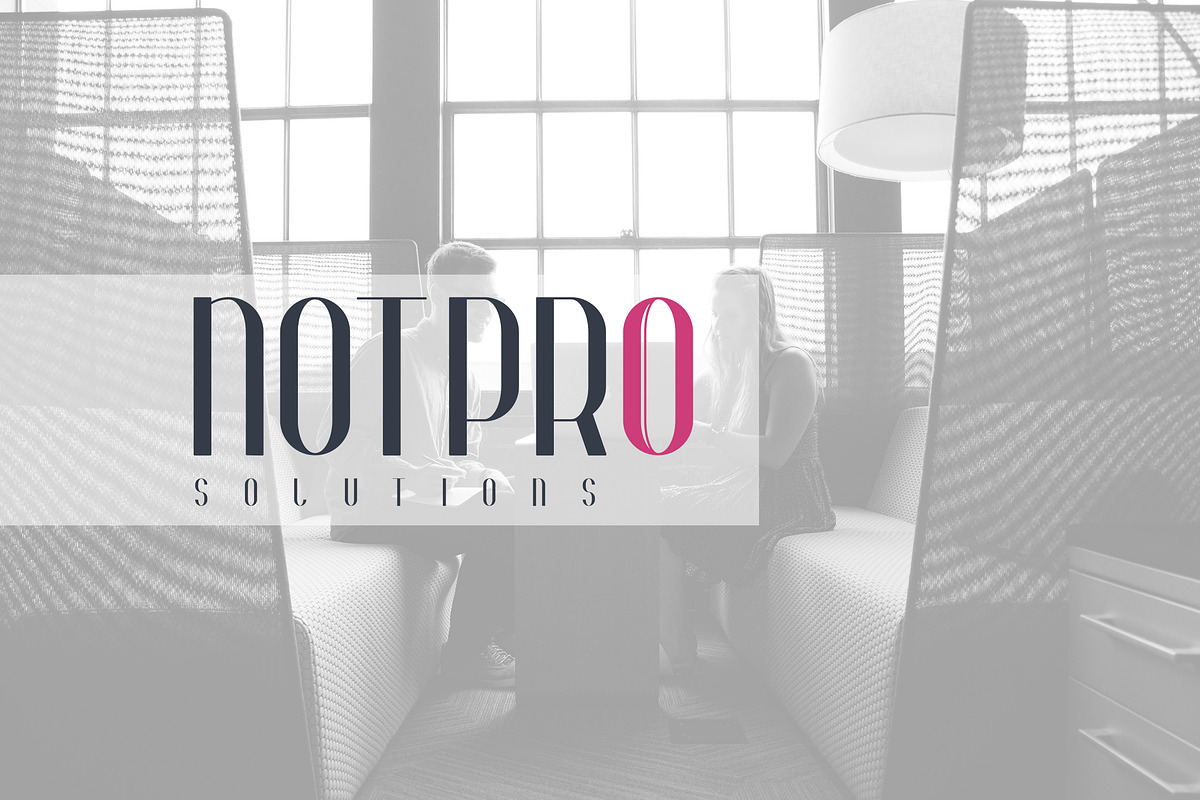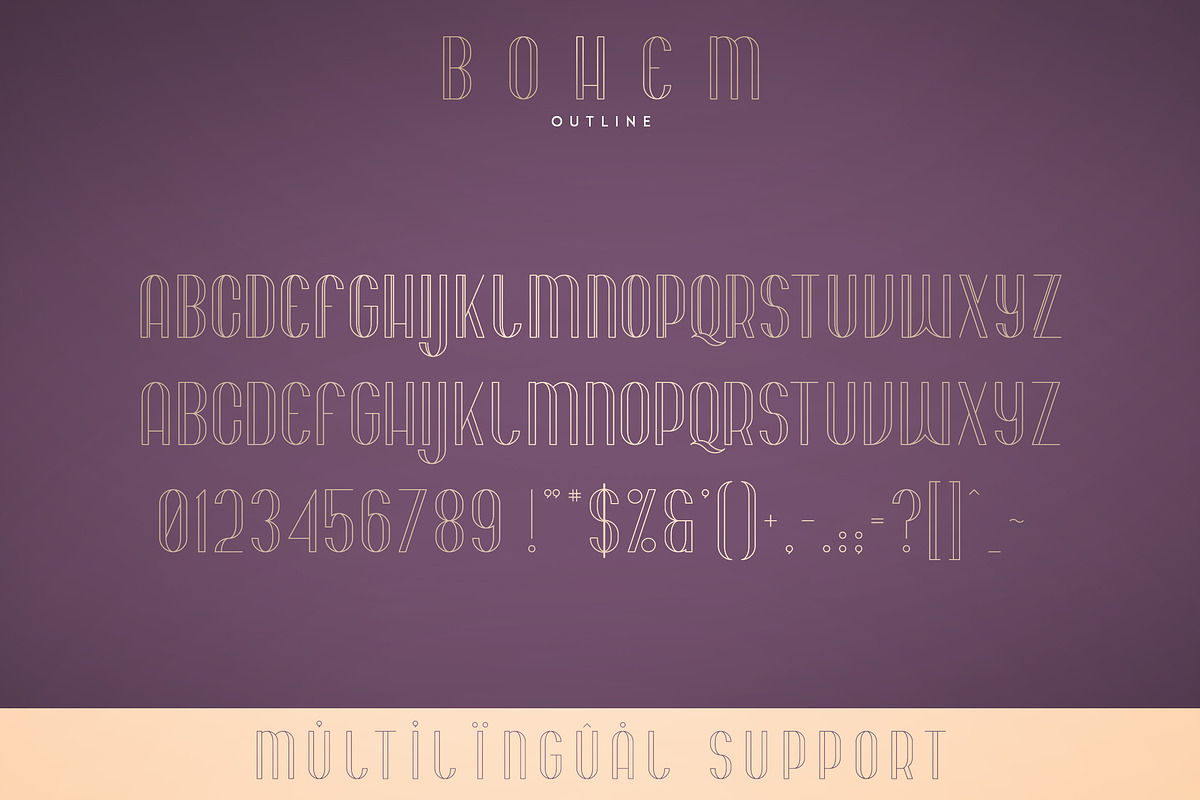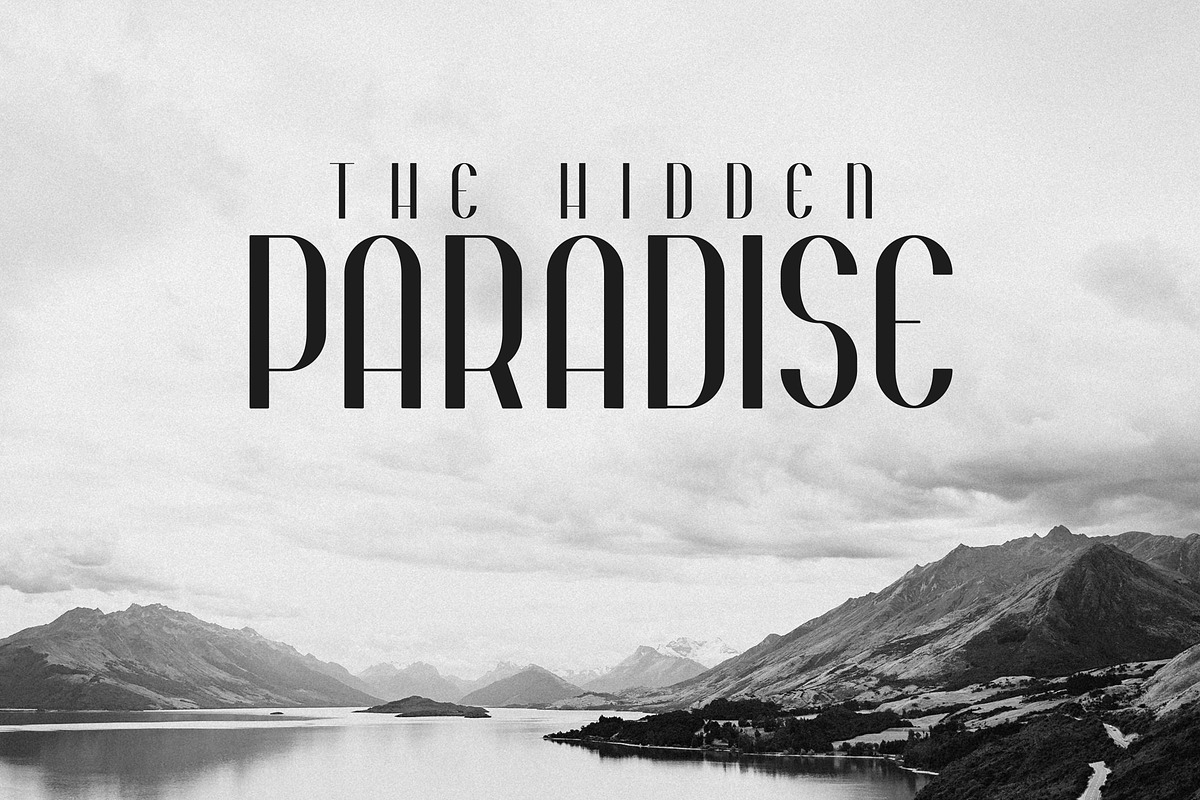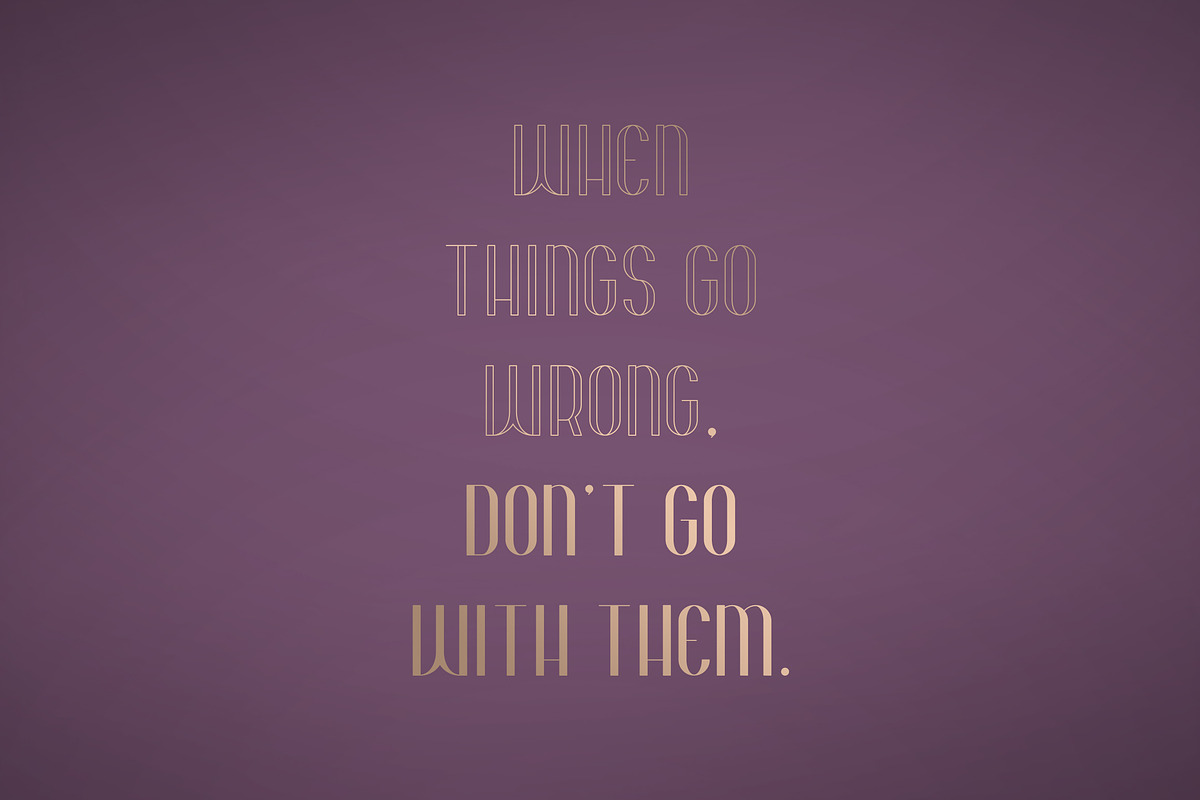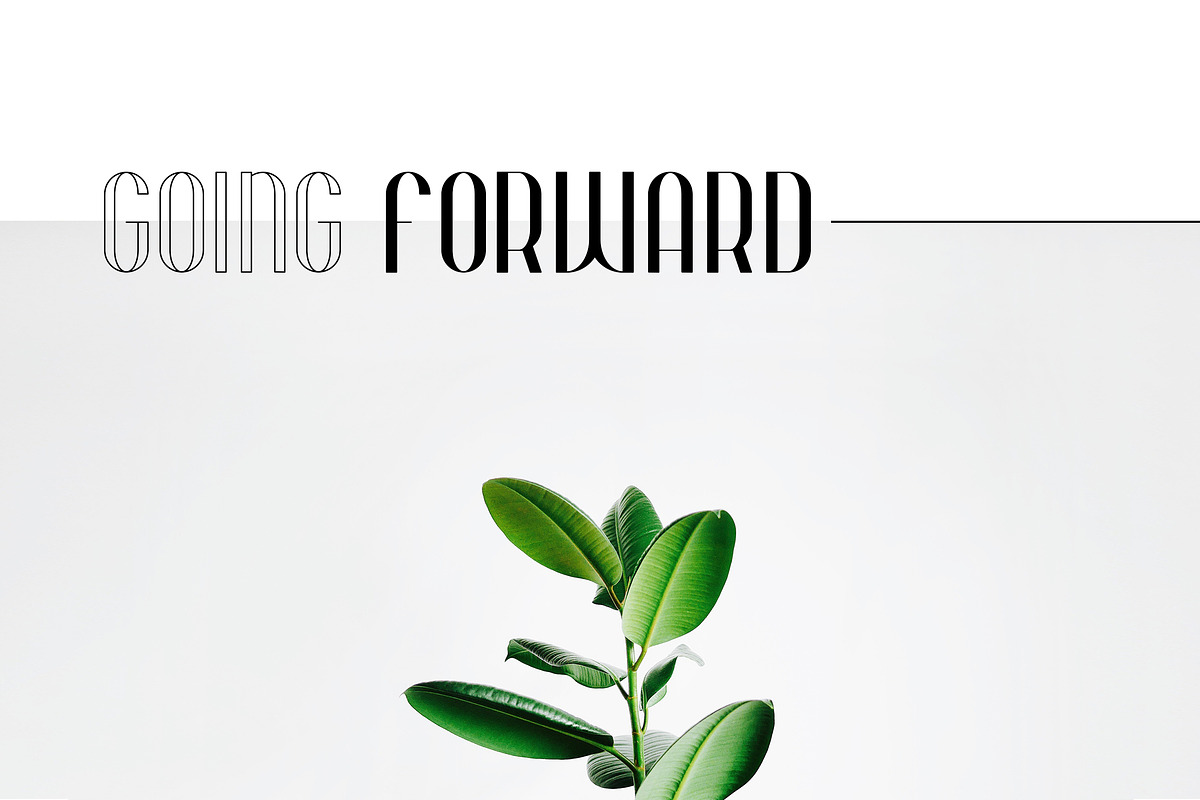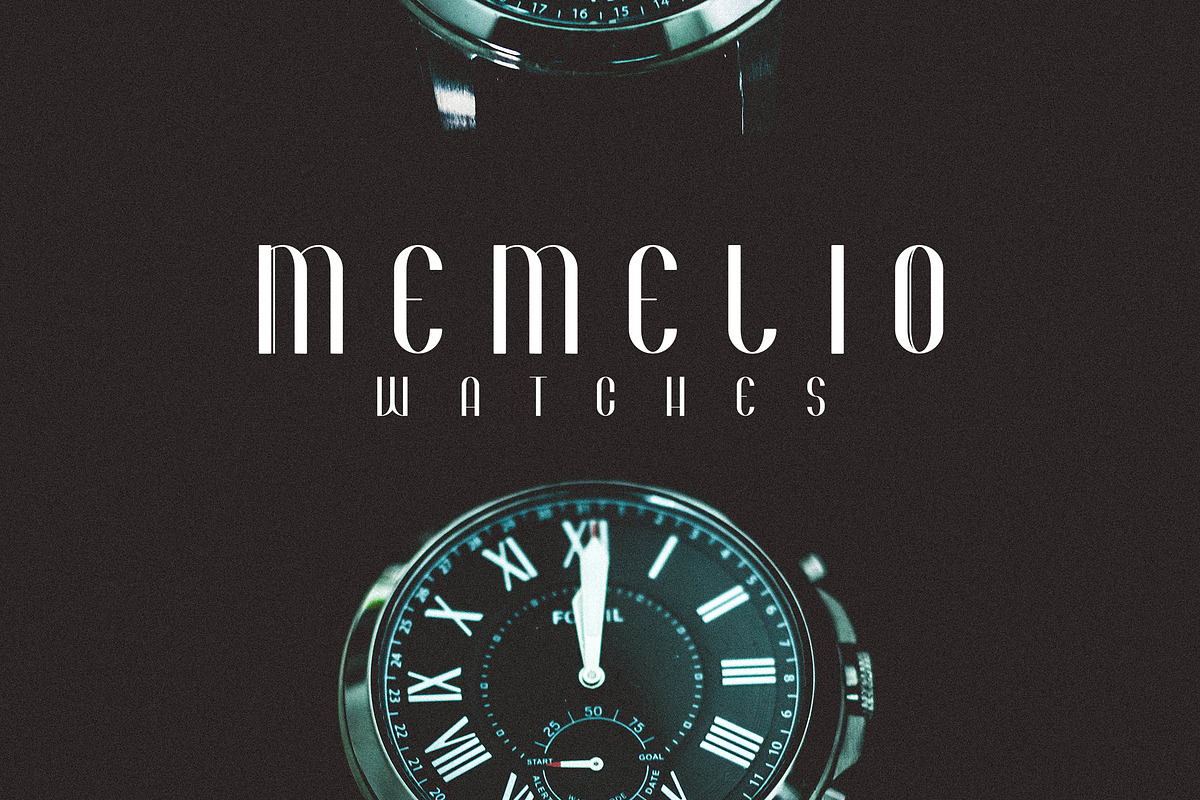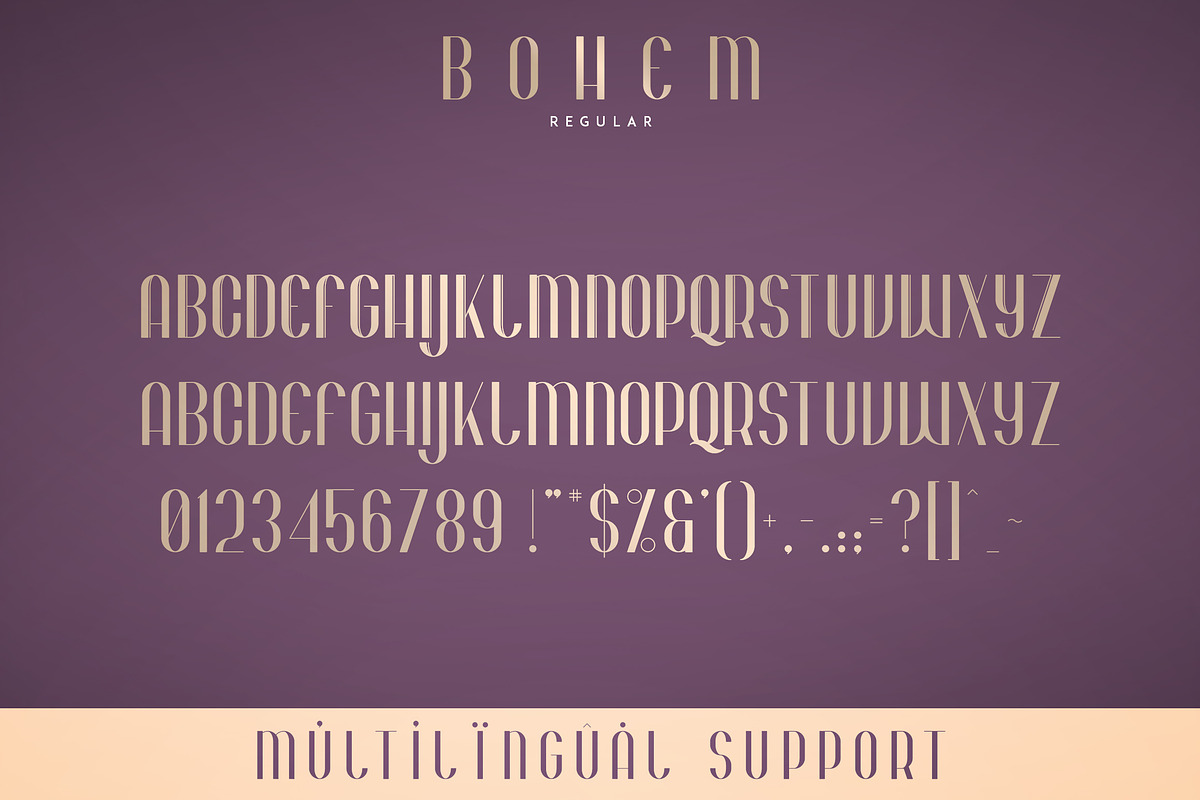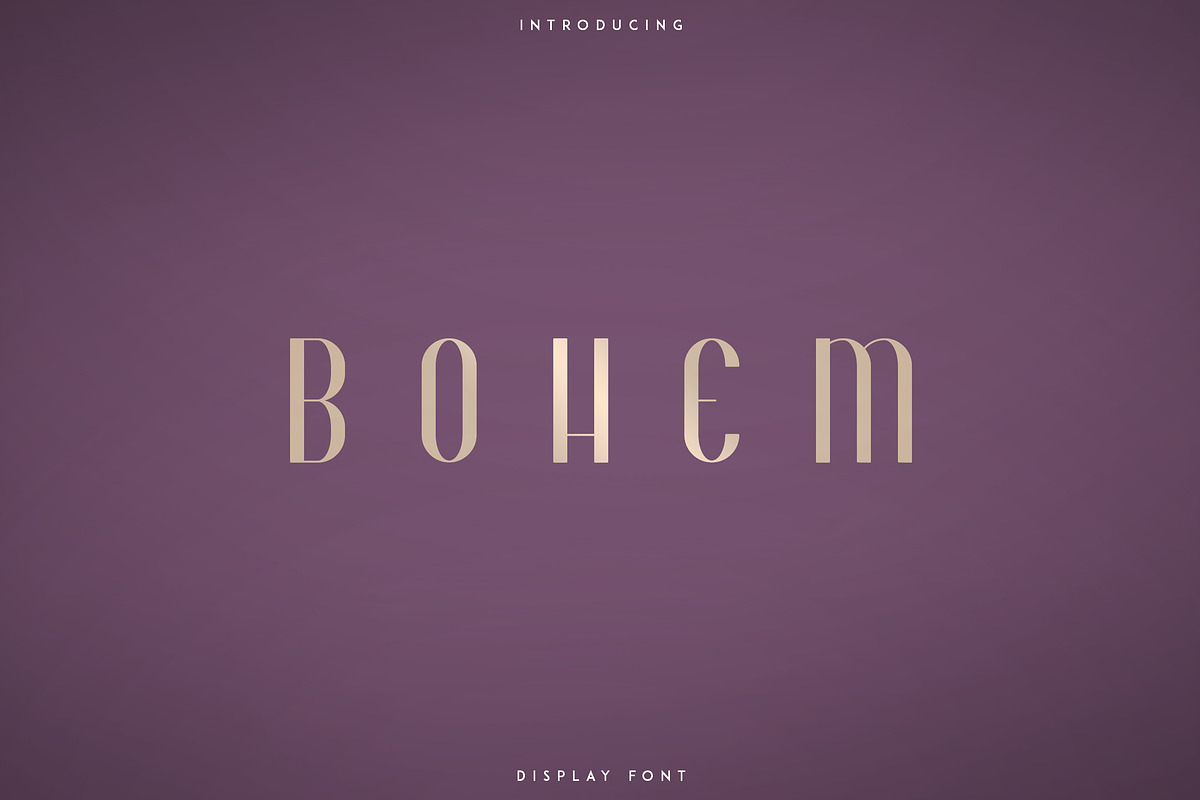
Bohem - Display font | 2 styles
Bohem is elegant, clean font with 2 styles and multilingual support. It's a very versatile font that works great in large and small sizes.
Bohem is perfect for branding projects, home-ware designs, product packaging, magazine headers - or simply as a stylish text overlay to any background image.
- Bohem Regular
- Bohem Outline